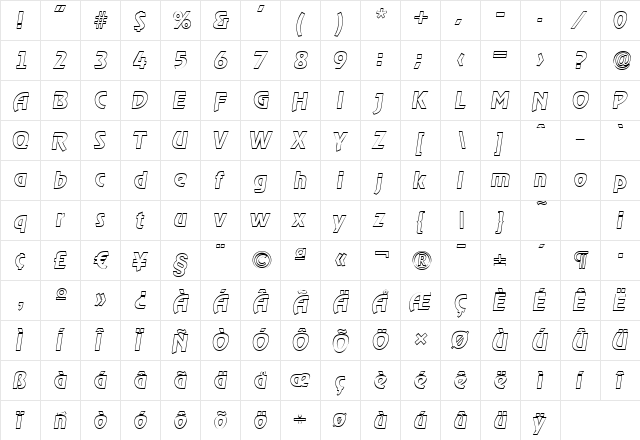
SalBeckerOutline BoldItalic
Design Context for SalBeckerOutline Typeface
SalBeckerOutline is built around its visual character rather than neutral utility — its distinctive forms are designed to make an impression at display sizes. The slanted form adds forward momentum and visual energy. Its bold stroke weight gives it real presence on the page.
Font Pairing: Pair with a clean neutral sans-serif for body copy to let SalBeckerOutline's character lead without overwhelming the composition.
Pro Tip: Use SalBeckerOutline exclusively at display sizes — it was designed to be seen, not read at length. Let a neutral companion handle body copy.